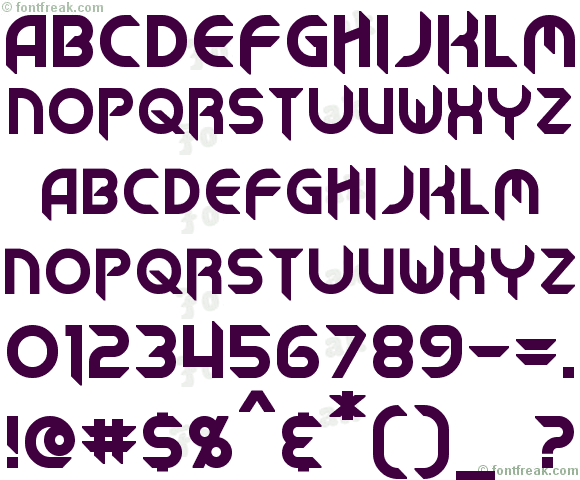
Mech Tech
About Mech Tech
The Mech Tech font, designed by Neale Davidson in 2012, is a striking display typeface that embodies a futuristic and technological aesthetic. This font falls into the decorative category, characterized by its bold, angular forms and a distinctive mechanical vibe. The stroke weight is consistent and substantial, giving the typeface a robust presence that commands attention. The characters are well-spaced, allowing for clarity and legibility, even at larger sizes. The design incorporates geometric elements and sharp angles, which enhance its industrial look and provide a sense of modernity.
Mech Tech is versatile, making it ideal for various applications. It works exceptionally well in tech-themed branding, such as websites for startups in the tech sector or product packaging for gadgets. Additionally, this font can be effectively utilized in movie posters, especially for sci-fi or action films, where its edgy design adds to the overall theme. Graphic designers can also use it in promotional materials like flyers and banners, where a bold statement is necessary. Furthermore, small business owners might find it suitable for signage and product displays, lending an innovative touch to their marketing efforts.
The target audience for the Mech Tech font includes graphic designers, content creators, and small business owners who seek a unique typeface that stands out. This font not only offers a free download option but also delivers an eye-catching visual identity that can elevate any project. What sets the Mech Tech font apart is its ability to blend creativity with functionality, making it an excellent choice for anyone looking to make a lasting impression in their designs. Embrace the future of typography with this remarkable font.